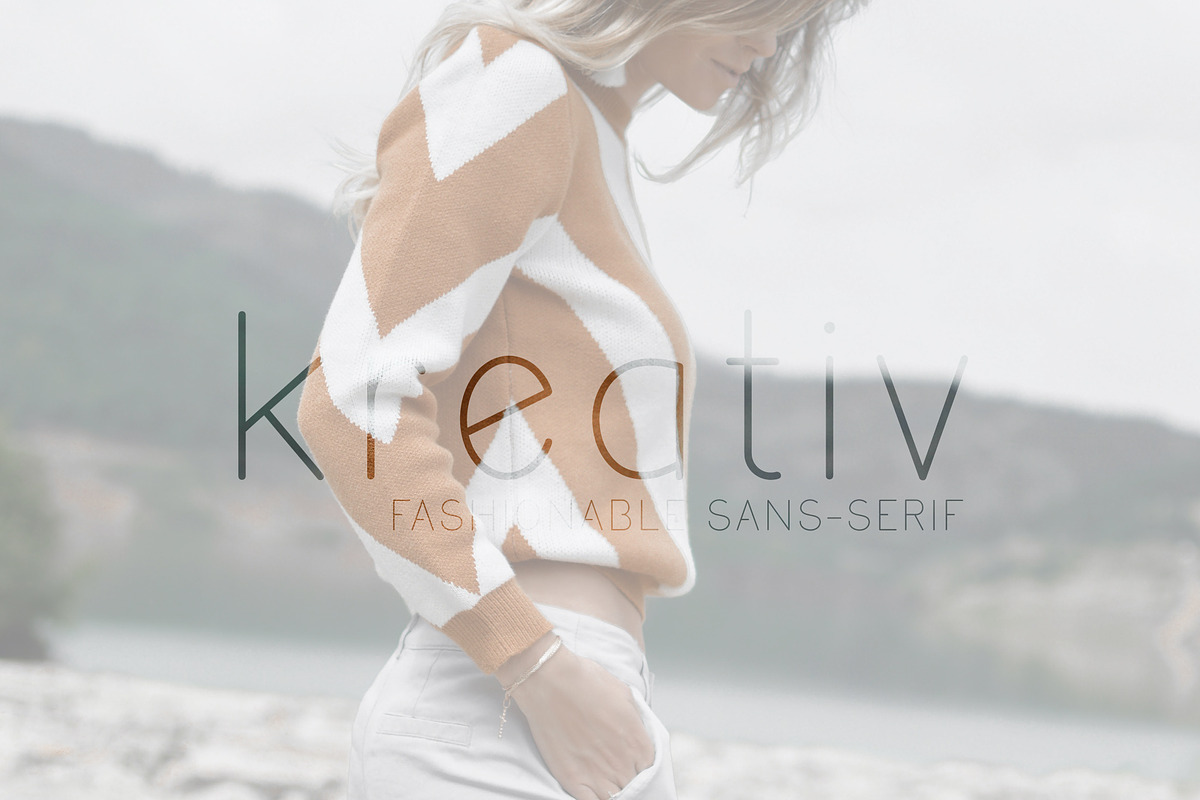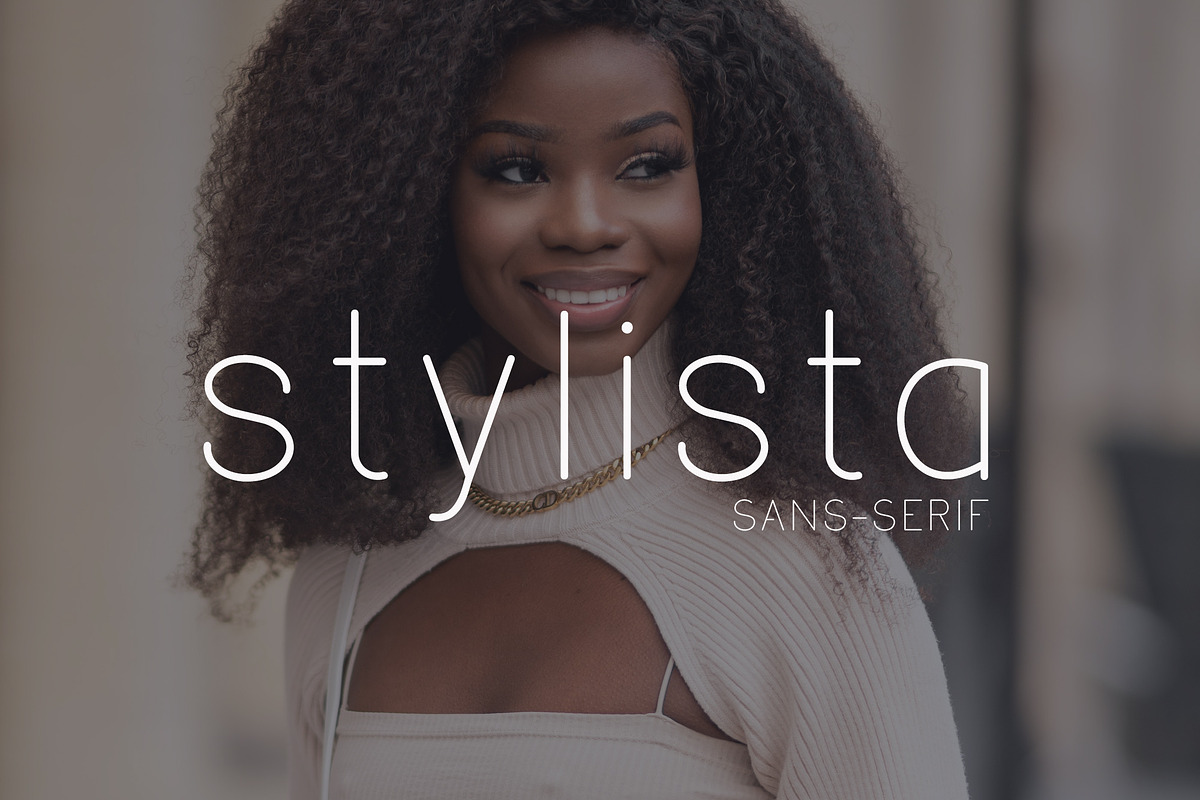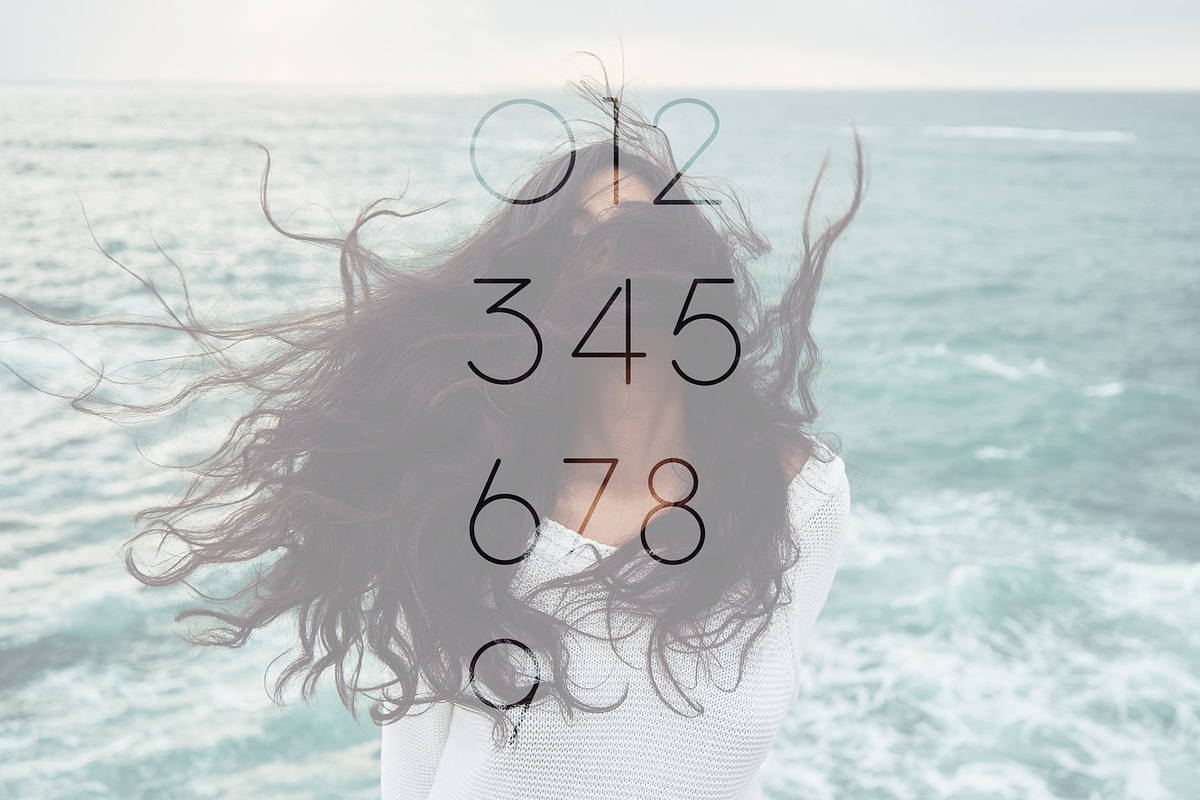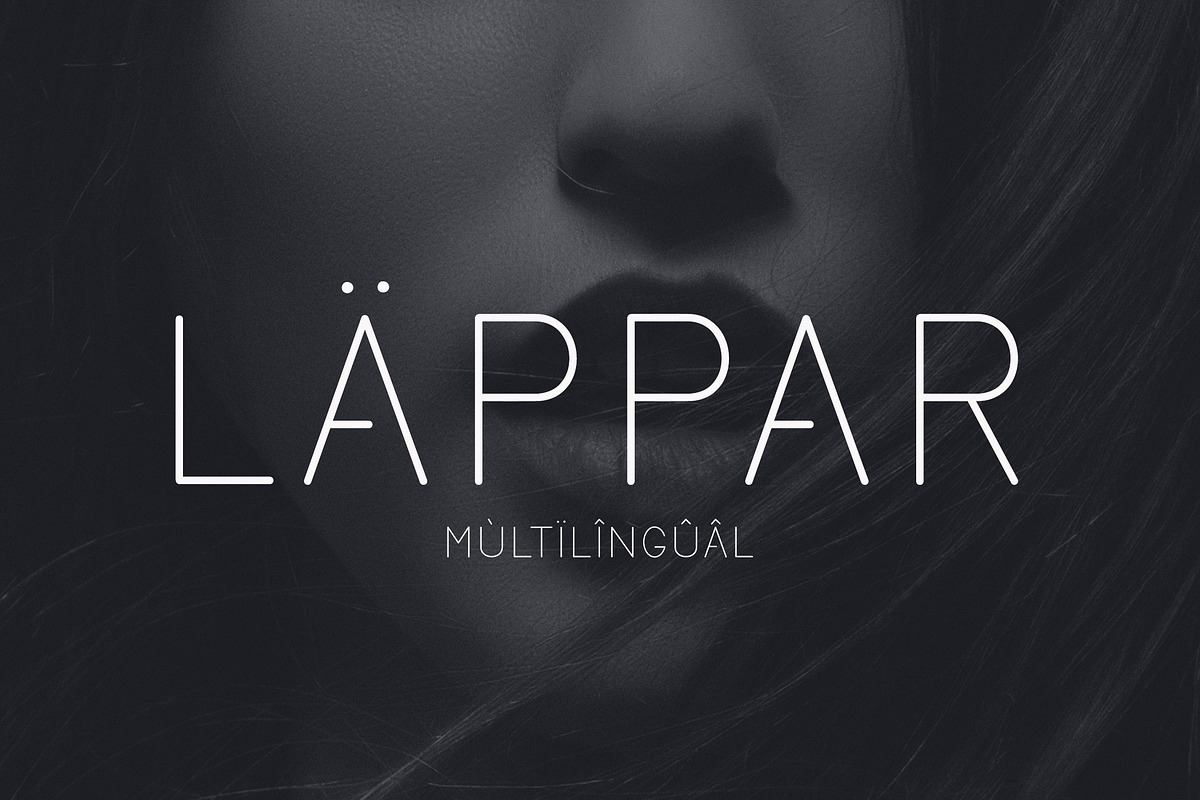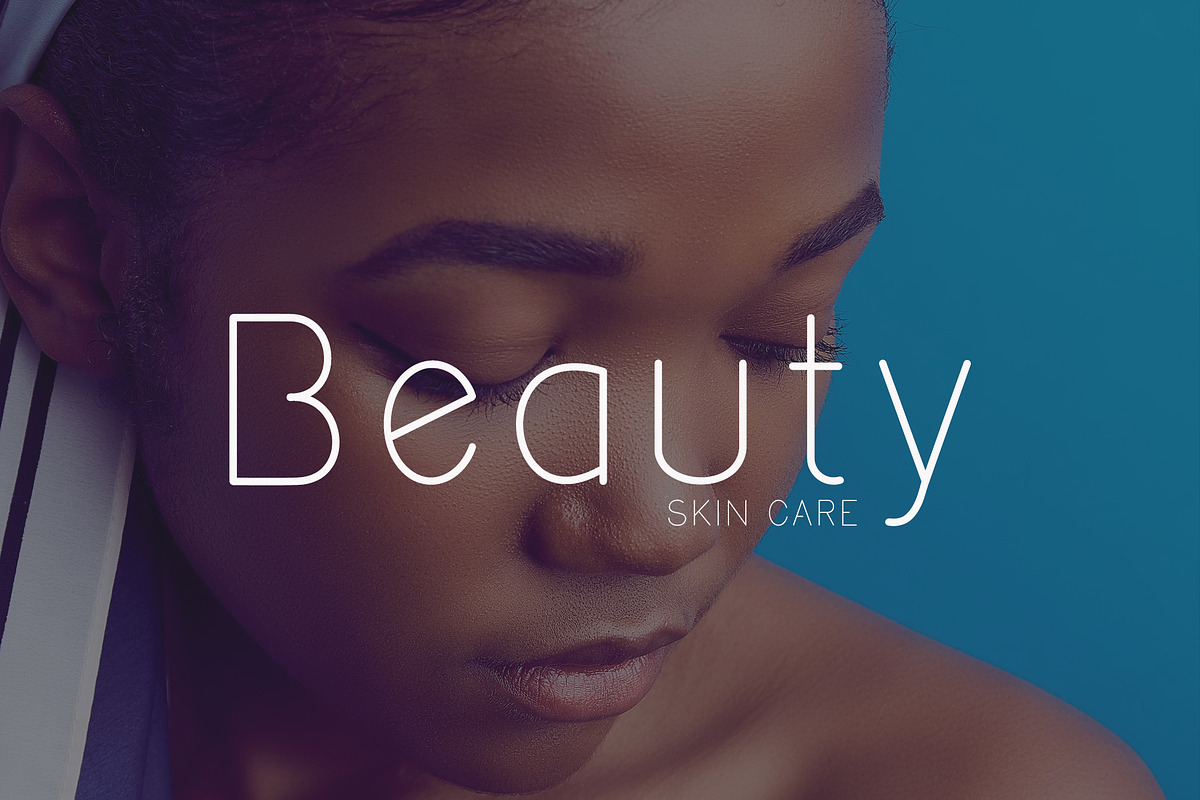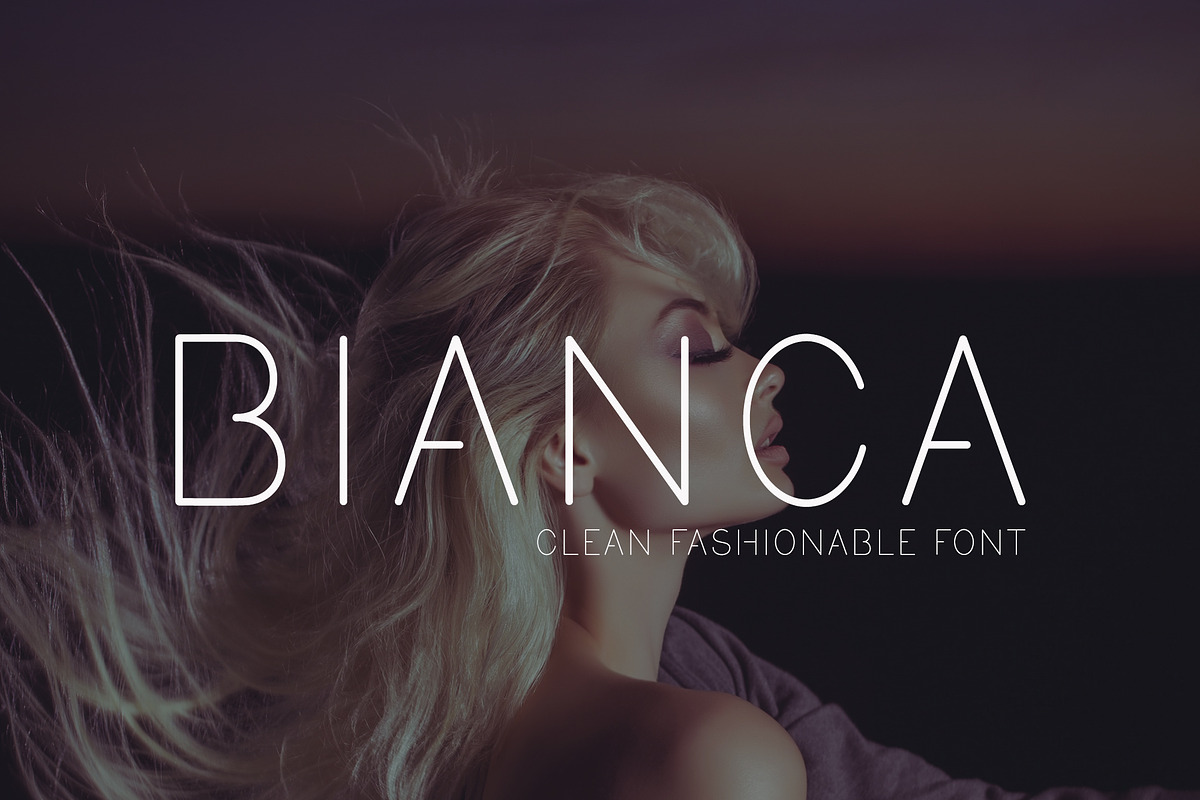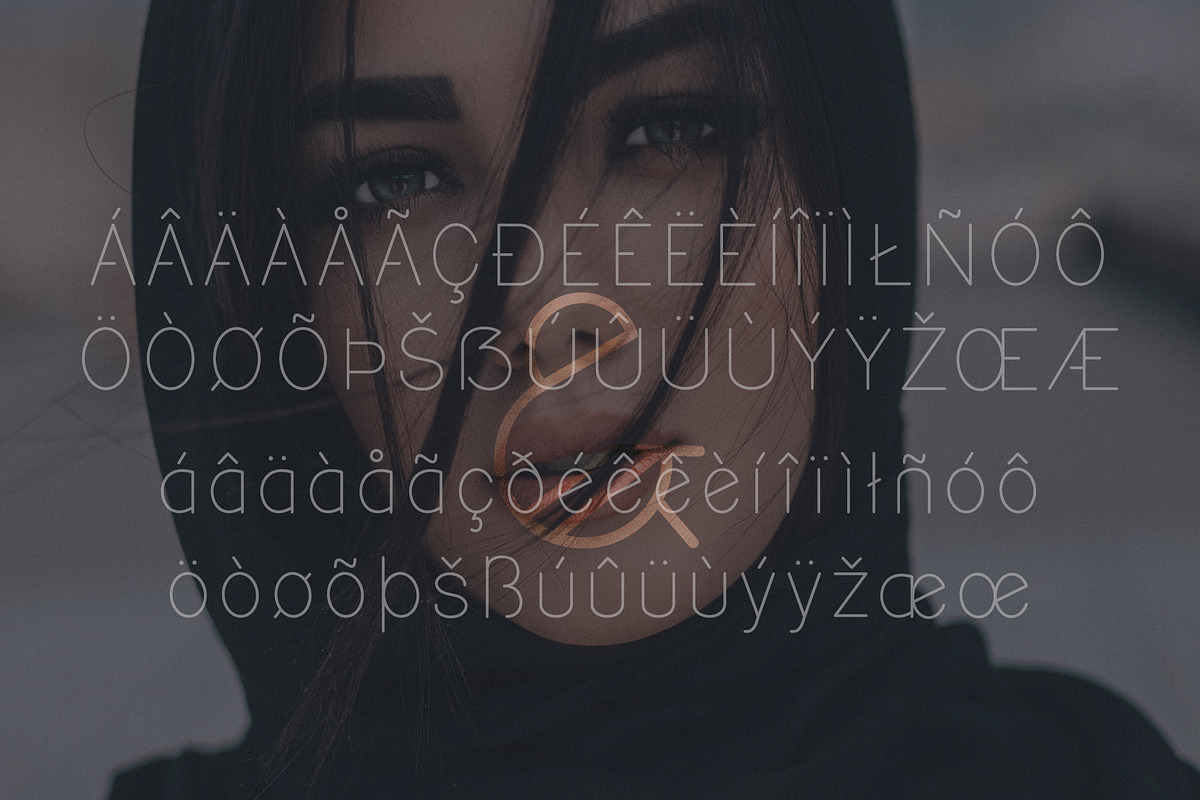
Bianca Pro - A Clean Sans Serif Font
Introducing our Modern Thin Sans-Serif Font, Bianca Pro - the perfect choice for all your stylish and minimal designs! With its clean lines and minimalist design, this font is ideal for modern logos, branding, social media graphics, and fashion-related projects.
The thin, elegant lettering adds a touch of sophistication to your designs, making it perfect for fashion-related projects. Use it for invitations, business cards, posters, and any project that needs a sleek and stylish look.
This font is easy to read, versatile, and perfect for designers who want a modern, sophisticated look. Try it today and elevate your designs to the next level!
Letters & Glyphs: → 218 handcrafted letters & glyphs including: å ä ö ø æ œ é † µ ü ı ß ∂ ƒ ¸ ˛ ÷ ç ‹ › ‘ ’ ‚ … – ’ * -